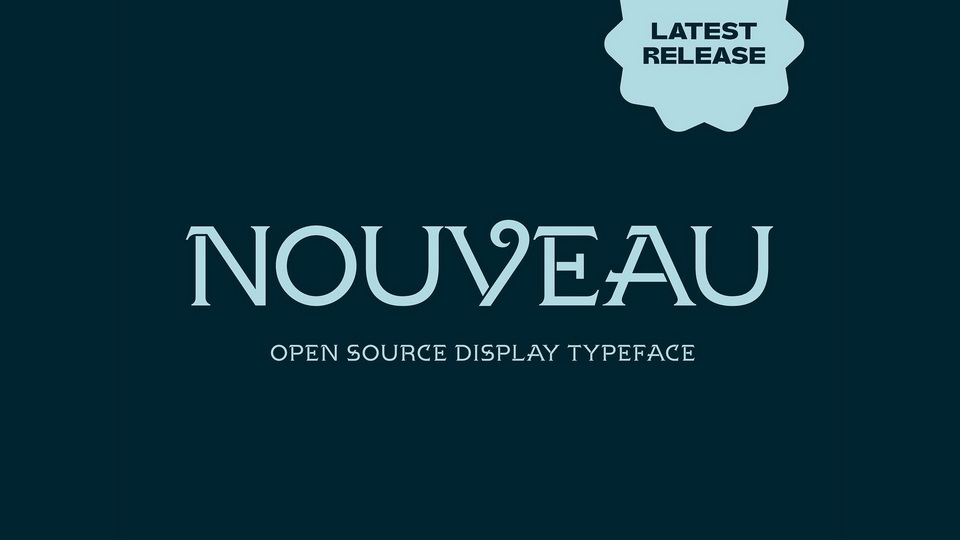
Download DT Nouveau font, an Art Nouveau inspired revival of a type specimen found in several issues of a local colonial-era publication, Straits Times Annual in the 1900s.
Designer: Death of Typography